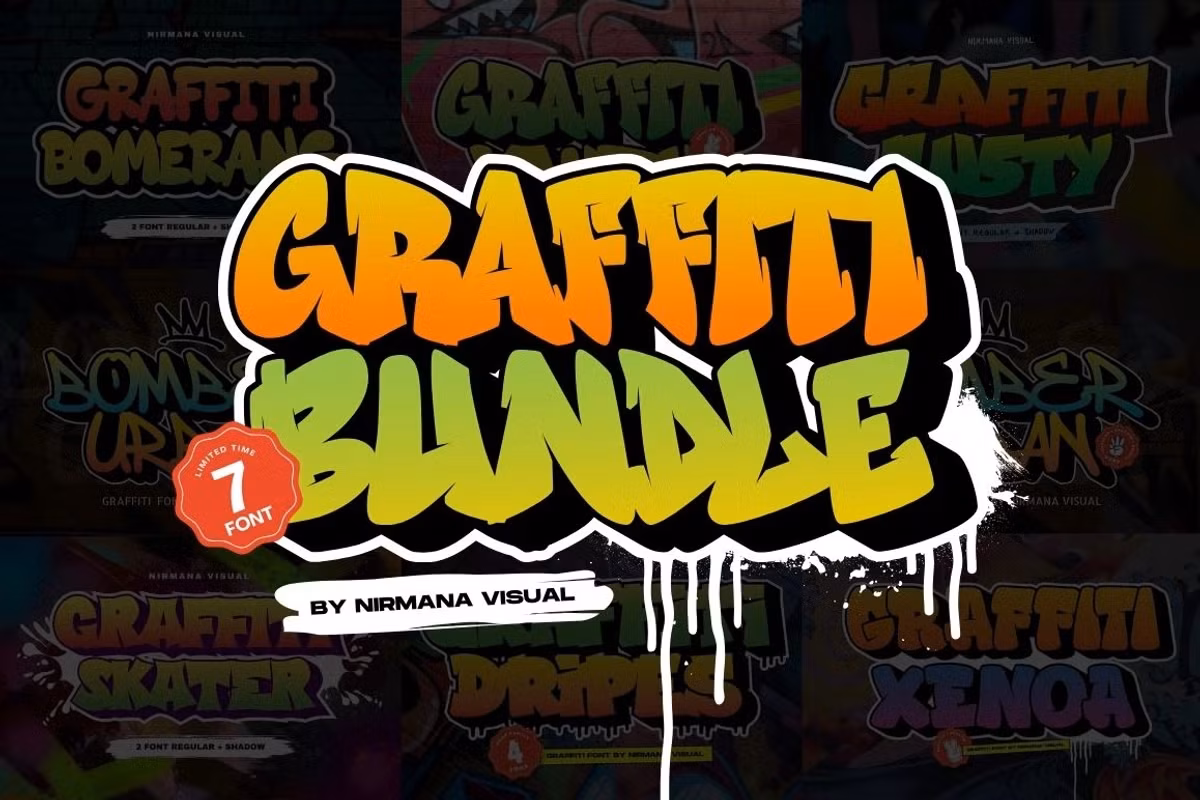
Graffiti Font Bundle Free Download is a vibrant and edgy collection of street-style typefaces perfect for bold design projects. Whether you're working on urban artwork, music covers, apparel branding, or digital graphics, this bundle delivers an authentic graffiti aesthetic that captures attention instantly. With a variety of styles—from wild tags to bubble letters—you’ll have the creative freedom to experiment and express raw, urban energy.
Each typeface in the Graffiti Font Bundle Free Download has been crafted to reflect real spray-paint textures and freehand strokes, giving your projects a gritty, real-world vibe. This bundle is ideal for designers who want to make a loud, rebellious, and artistic statement through their typography.